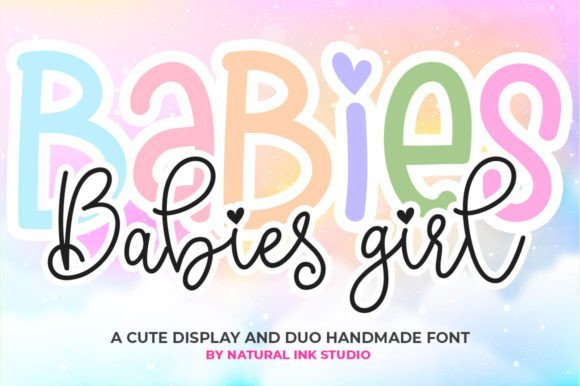
Baby Steps to Beautiful Typography
Have you ever stared at a blank page, searching for the perfect font to convey the emotions and personality of your design? I know I have. There’s something magical about finding that one font that brings your project to life. For me, that moment happened when I discovered the Babies Girl Font Duo – a stunning, hand-crafted script font that adds a touch of elegance and whimsy to any design.
This beautiful font, comprising of Hailey Script, is a must-have for designers looking to create memorable and sophisticated designs. From wedding invitations to greeting cards, the Babies Girl Font Duo is perfect for anyone seeking to add a personal touch to their projects. Its versatility and range of features make it an invaluable asset for designers, allowing them to experiment with different styles and effects.
- Unique Characteristics: Features a playful, cursive script with rounded edges and a feminine touch, perfect for baby-related designs and themes
Babies Girl Font Review
I’ve had the chance to work with the Babies Girl Font, and overall, I think it’s a cute and playful font that’s perfect for kids-related projects or feminine designs. ✨ The font’s rounded edges and whimsical feel make it suitable for children’s books, nursery decor, or even branding for a kid-friendly business. ✨ The font also includes a range of characters, including uppercase and lowercase letters, numbers, and punctuation.
- Cute and playful design
- Suitable for kids-related projects or feminine designs
- Includes a range of characters
- Easy to read
- The font may not be suitable for more formal or professional projects
- The design may be too cliche for some users
- The font is not as versatile as some other fonts on the market
Overall, I think the Babies Girl Font is a nice addition to any designer’s toolkit. While it may have some limitations, it’s perfect for projects that require a cute and playful touch. Just be sure to consider the context and audience before using it.
For a more realistic look, pair the Babies Girl Font with a distressed or vintage effect.
For a more cohesive look, use the Babies Girl Font in combination with other distressed or whimsical elements.
For a more polished look, pair the Babies Girl Font with a clean and simple design.
The Babies Girl Font is ideal for:
Baby showers and nursery decorations
Children’s party invitations and decorations
Baby-related products and branding
Whimsical and playful designs
The recommended font size for Babies Girl Font is between 12pt and 24pt, depending on the application and desired level of readability. It is essential to test the font at different sizes to ensure optimal legibility and aesthetics.